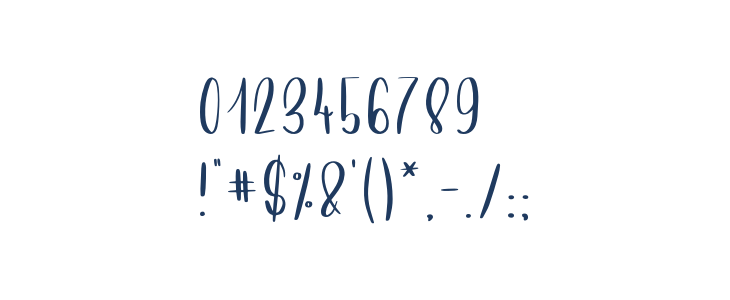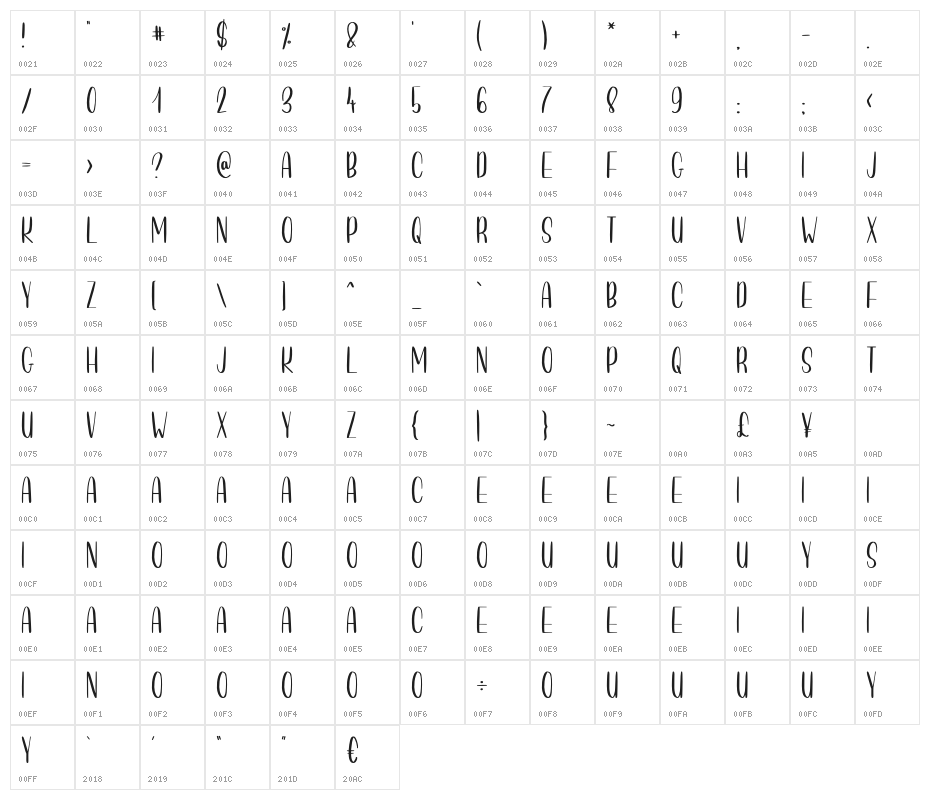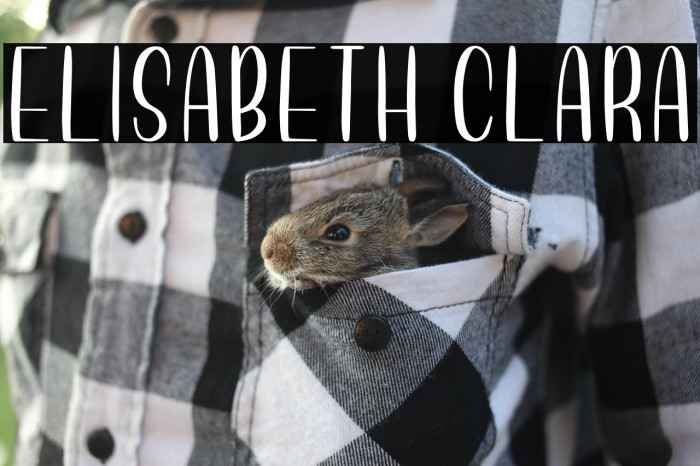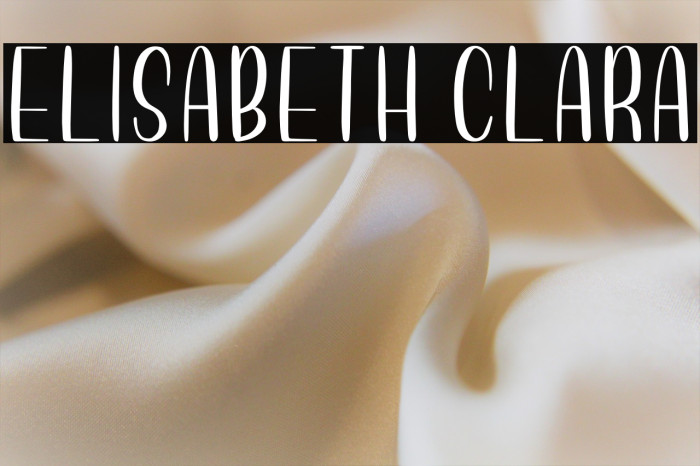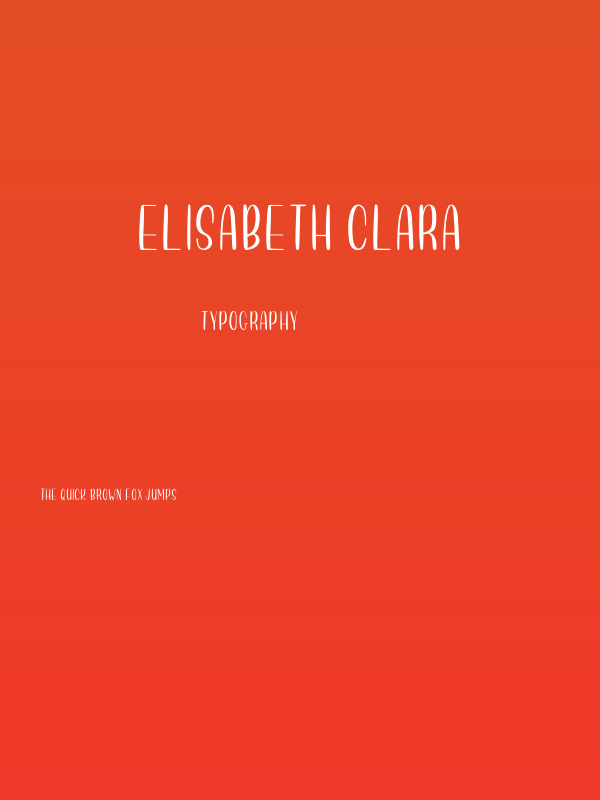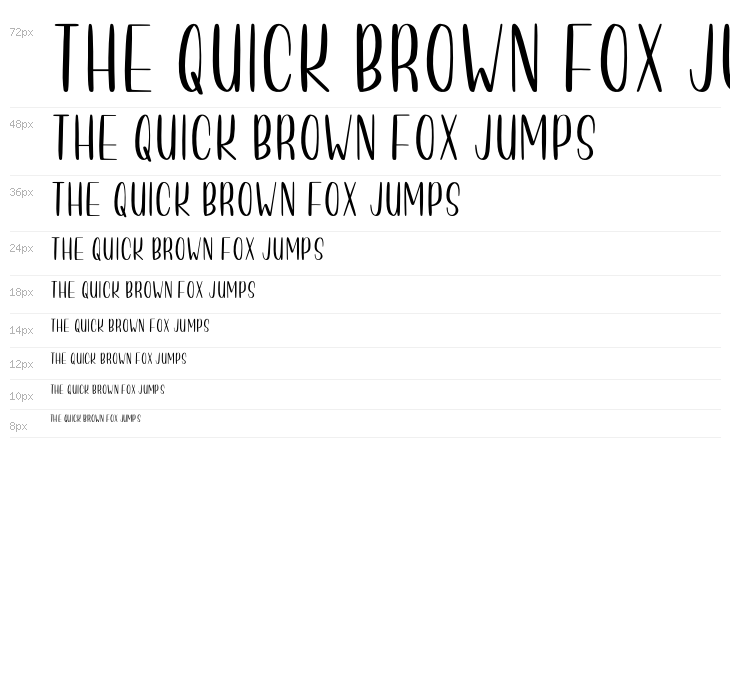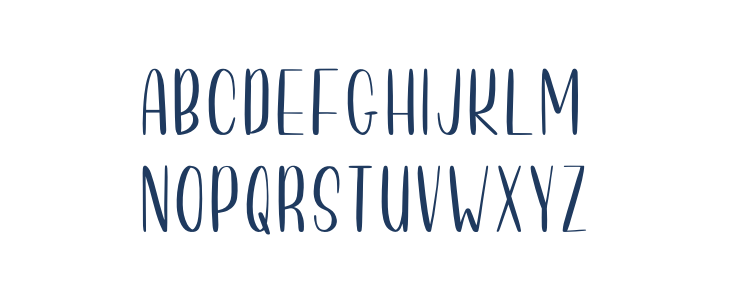
Elisabeth Clara Font
Elisabeth Clara Description
This font features a playful and casual handwritten style, characterized by its tall and narrow letterforms. The strokes are slightly uneven, giving it a natural and organic feel. The uppercase and lowercase letters maintain a consistent height, while the numbers and special characters complement the overall aesthetic. The font's informal and friendly appearance makes it suitable for projects that require a personal touch. Its unique style is both approachable and versatile, making it a great choice for creative designs.
| Proposed Projects | Ideal for greeting cards, invitations, posters, and social media graphics. |